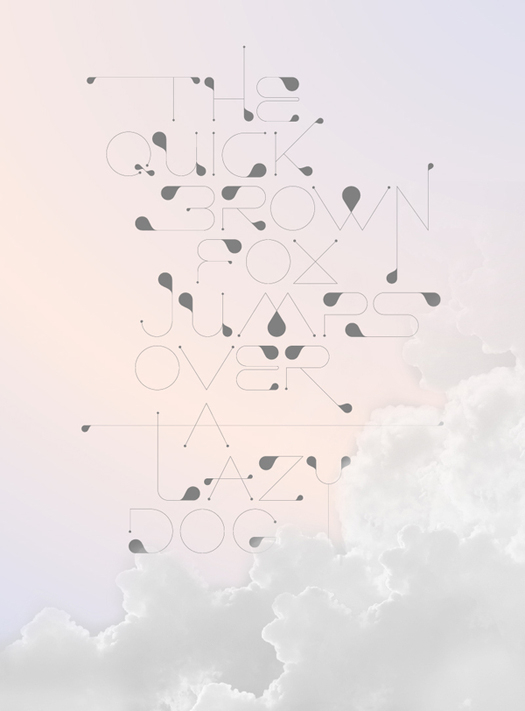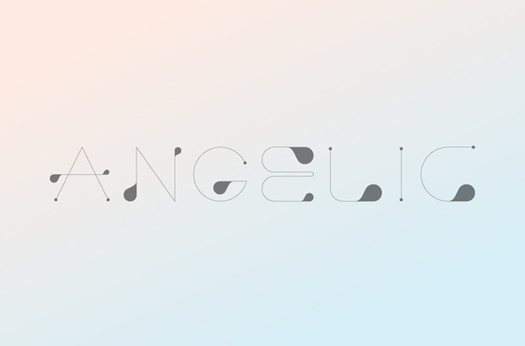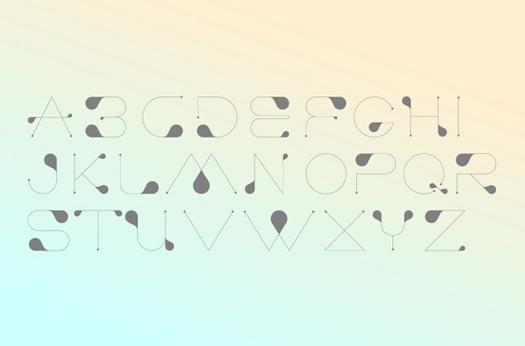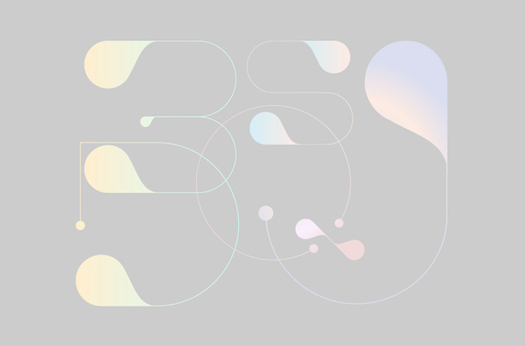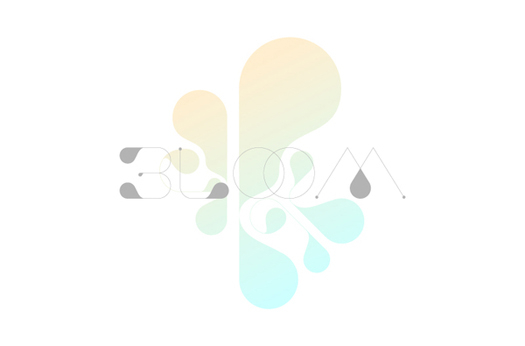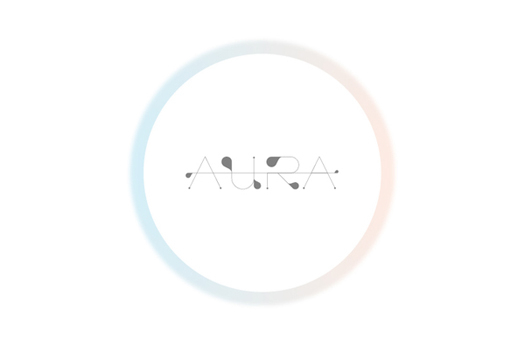
Angelic
Angelic is a handset typeface inspired from the shape of butterfly and angel. It was first created for The Mall Group’s Beauty Hall 11 th Anniversary Magazine with Harper’s Bazaar Thailand. I, later, complete the whole upper case alphabet as a personal project later.
Designer: Bon Chantawibul
Publisher: Handmadefont